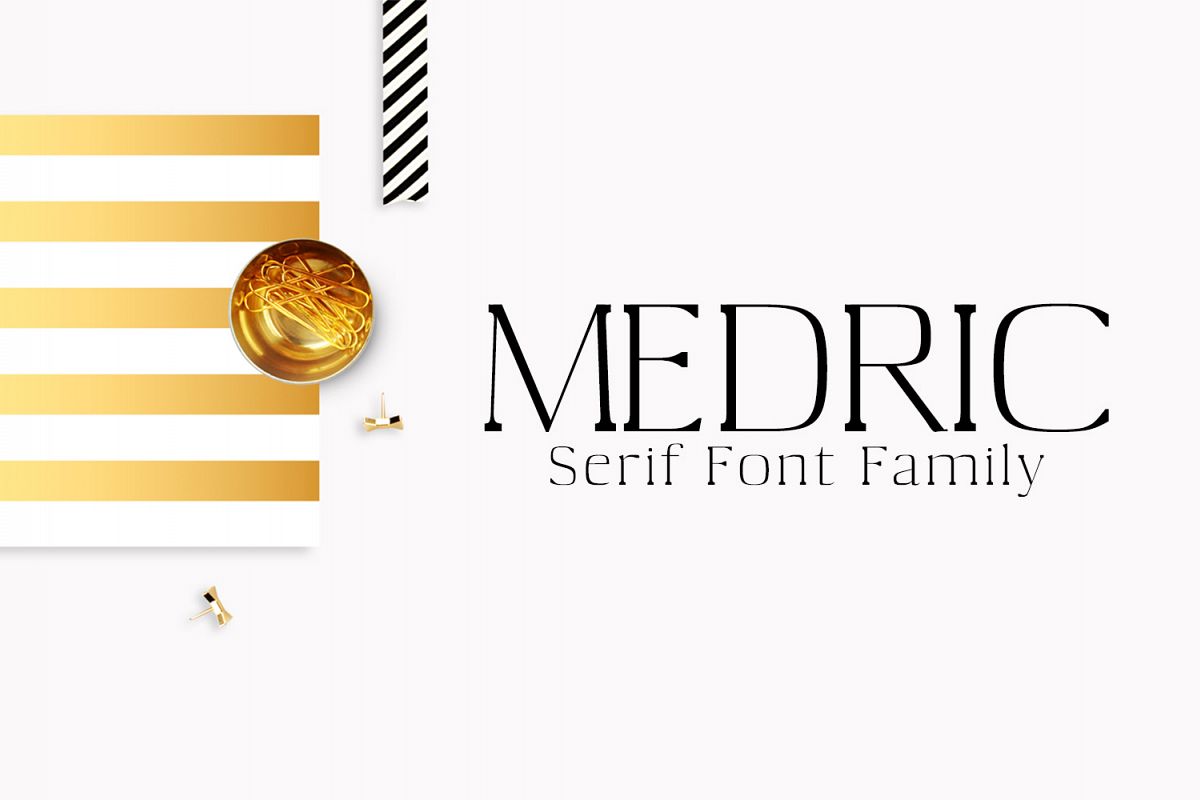
Medric Serif Font Family
Medric Serif Font Family is decorative and beautiful serif font family of 4 weights and it features unique and modern serif look and feel.Perfect for gorgeous logos & titles, layouts & content, or large & small scale, It looks gorgeous in all caps with a wide-set spacing if you want to try a classy look, or beautiful on its own in capital and lowercase letters for something completely timeless.Included Features:
• Font Weight: Regular, Medium, Bold and Black
• Extras: Uppercase Multilingual Letters, Lowercase Multilingual Letters, Numbers & Punctuation + Alternatives.